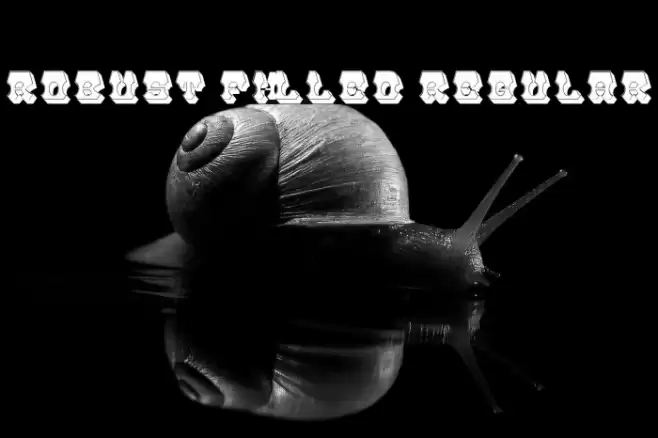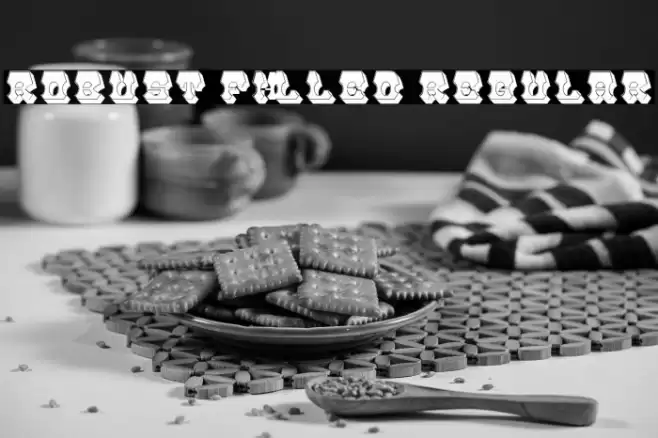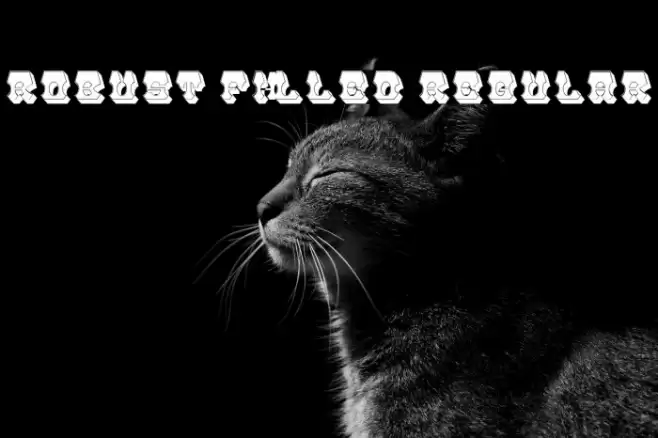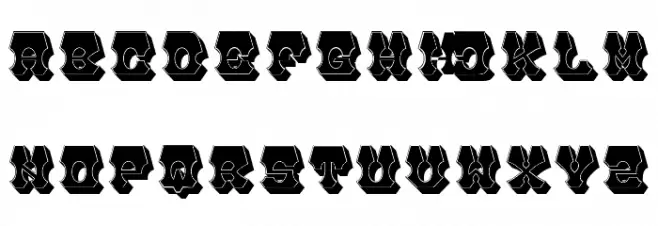
Robust Filled Regular Font
Robust Filled Regular Description
This font features a bold, three-dimensional appearance with a filled, robust structure. Each character is designed with a strong, geometric form that gives it a striking and impactful look. The letters are heavily stylized with a shadow effect that enhances their depth and presence. The font's design is consistent across both uppercase and lowercase letters, as well as numbers and special characters, maintaining a cohesive and unified aesthetic. Its boldness and unique style make it stand out, making it suitable for projects that require a strong visual impact.
A bold, three-dimensional font with a filled, geometric design and shadow effect from Uncategorized fonts.
- Proposed Projects: Ideal for posters, headlines, logos, and any design requiring a strong visual impact.